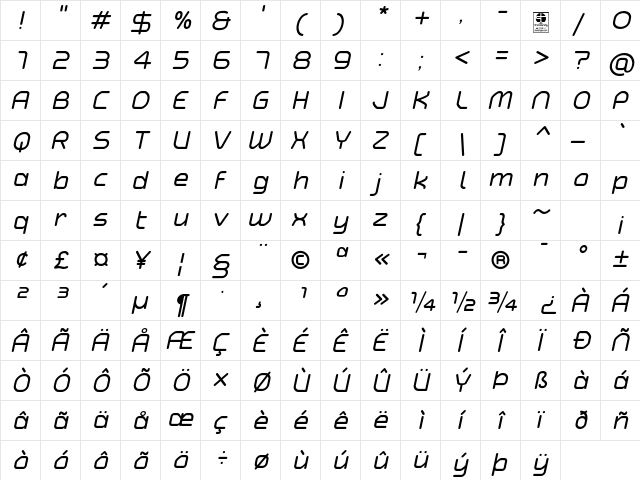
Typo Angular Rounded Demo Italic Font Preview
Design Context for Typo Angular Rounded Demo Typeface
Typo Angular Rounded Demo softens its letterforms with rounded terminals, giving it an approachable, friendly quality that works well in consumer-facing and digital contexts. Its italic angle brings a sense of urgency and motion to the letterforms.
A natural fit for tech startups, health and wellness brands, children's products, and friendly consumer apps.
Font Pairing: Pairs well with a rounded or humanist sans for body copy, maintaining the friendly tone without relying on Typo Angular Rounded Demo to carry extended reading.
Pro Tip: Pair Typo Angular Rounded Demo with a geometric sans for a balanced system — the rounded softness works as a warm counterpoint to harder-edged companions.